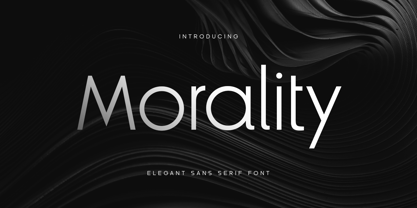
Morality
par Sensatype Studio
Morality Font la famille était conçu par Zamroni Hamzah et publié par Sensatype Studio. Morality contient 1 styles.
Morality is a Modern Elegant Sans Serif Font that perfect for branding, logotyp, poster design, etc
A new San Serif Font that we created special for Headline, Title and more stand out typography needs. It's so perfect to add your style and headline overview. And specially for Headline font, we crafted for unique style and modern feels so enjoy to create any project that will show your main idea out.